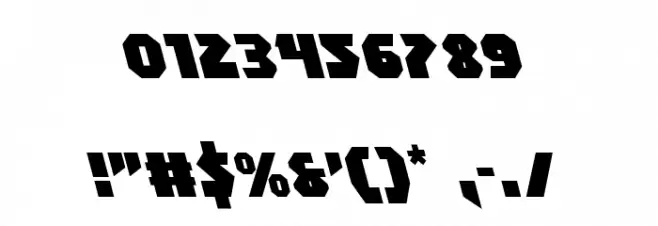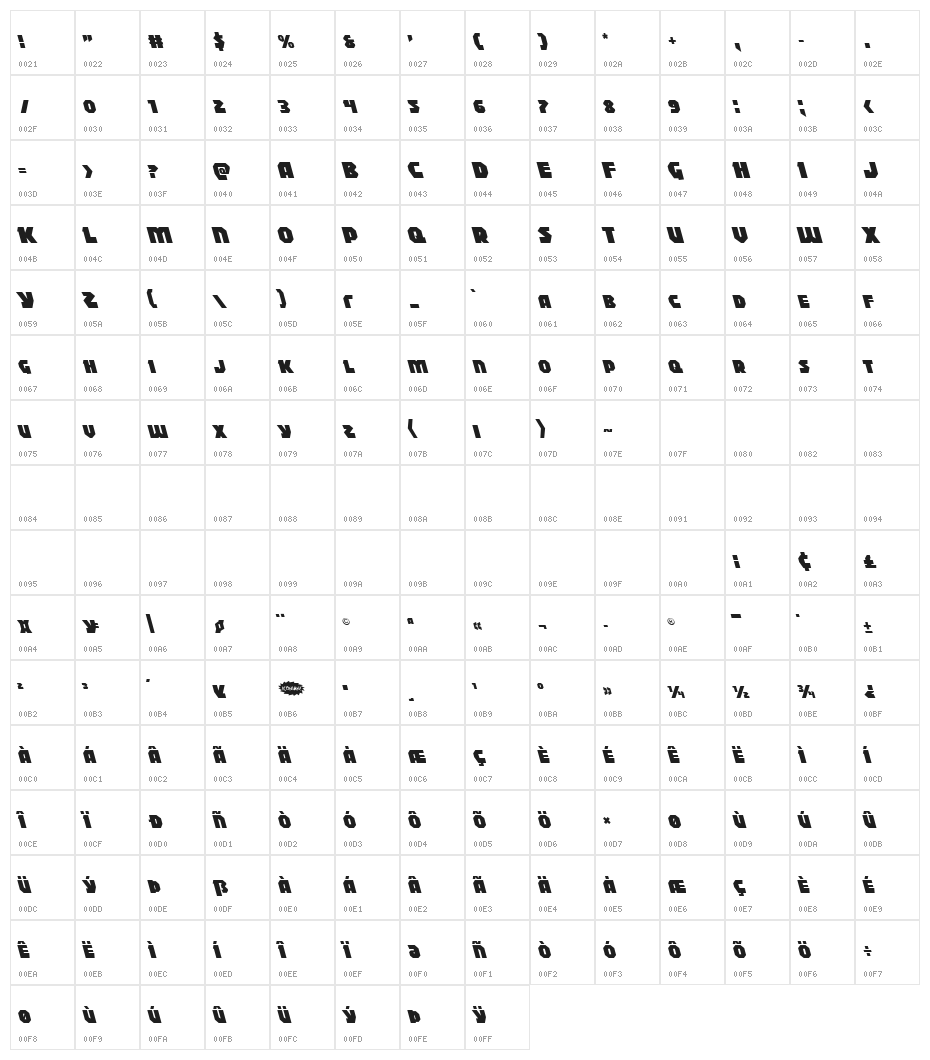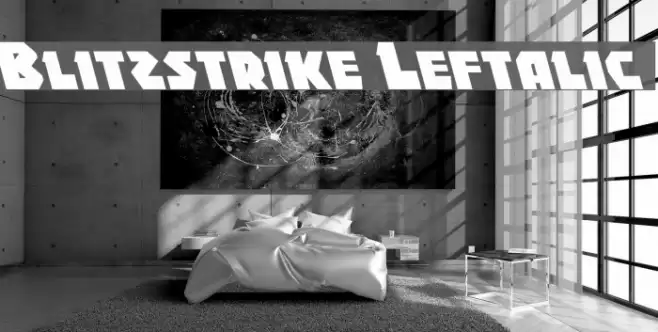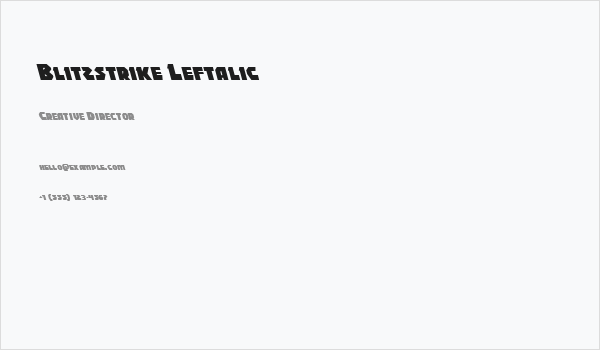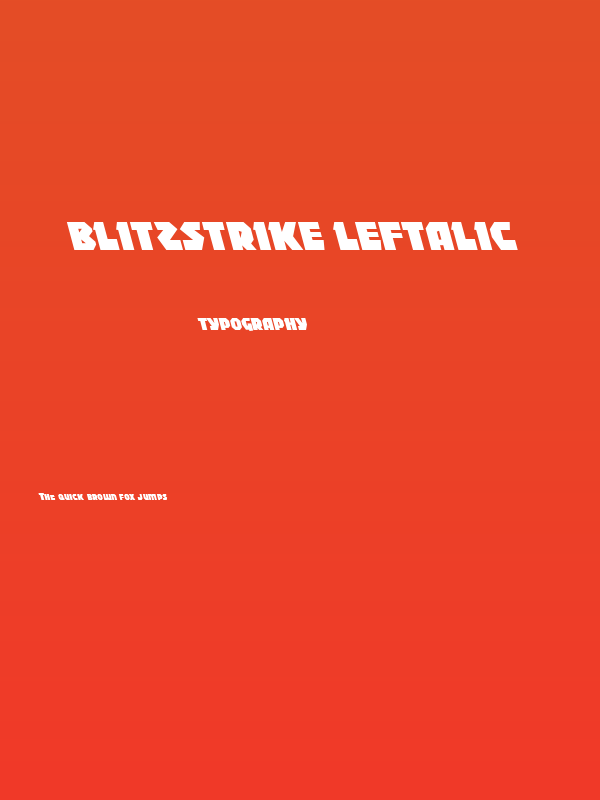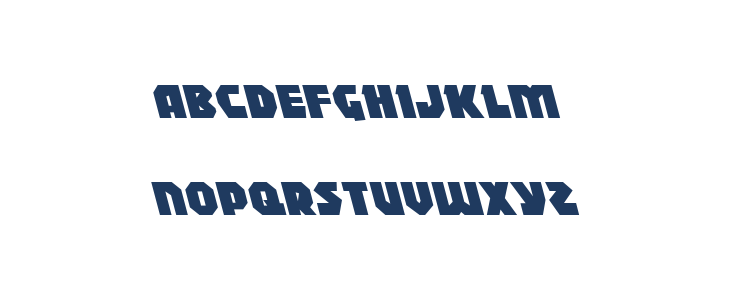
Blitzstrike Leftalic Font
Blitzstrike Leftalic Description
This font features a bold and angular design, characterized by its sharp edges and dynamic slant. The uppercase and lowercase letters maintain a consistent geometric style, creating a sense of movement and energy. The numbers and special characters follow the same angular theme, ensuring uniformity across all glyphs. The font's boldness and unique style make it stand out, ideal for projects that require a strong visual impact.
| Proposed Projects | Ideal for sports branding, action-themed posters, video game titles, and dynamic logos. |